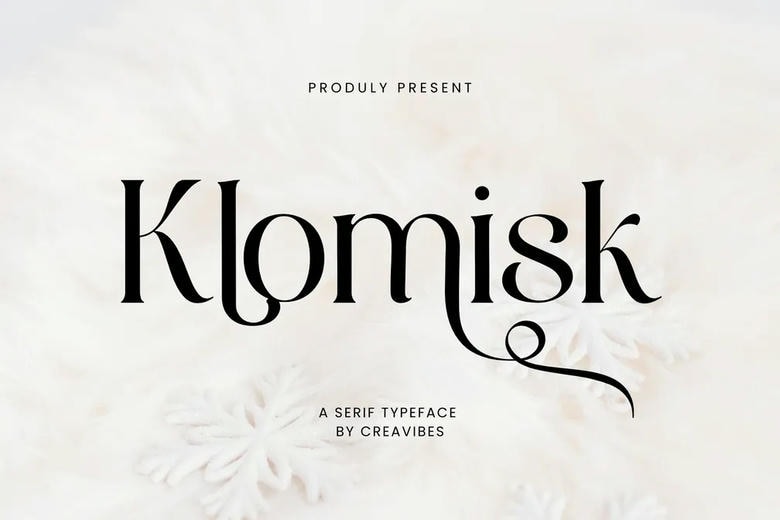
Klomisk Font
Klomisk is a heavyweight, well-rounded serif typeface with both traditional design and sophisticated air. With clean serifs, proportionality, and readability, this font is the best to use in editorial layouts, branding, books, logos, and professional designs. Klomisk is a timeless and classy look that is also adaptable to traditional and modern projects.
Klomisk Serif Font